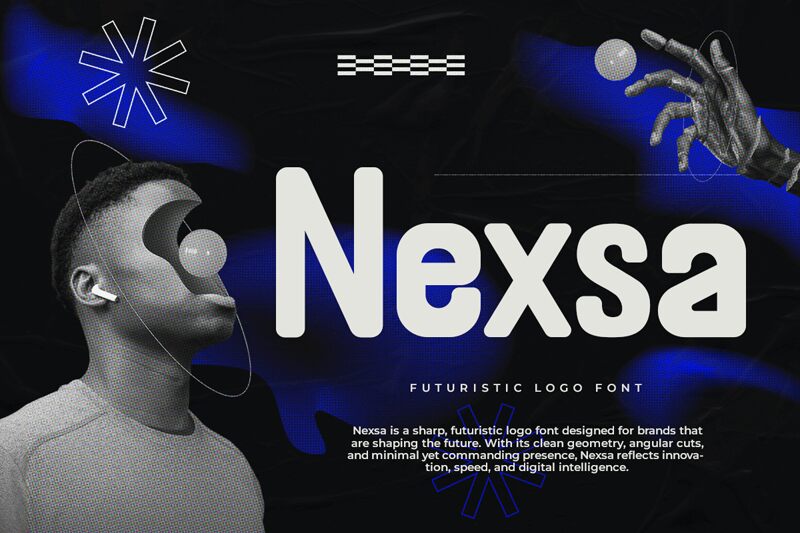
Nexsa font designed by Kong Font is a free techno style font that combines modern aesthetics with streamlined visual appeal. It features clean lines and incorporates futuristic undertones that can bring a slight technological atmosphere when used in text.
Versatile, minimalistic, and contemporary, it features geometric shapes that give it structure and rhythm.